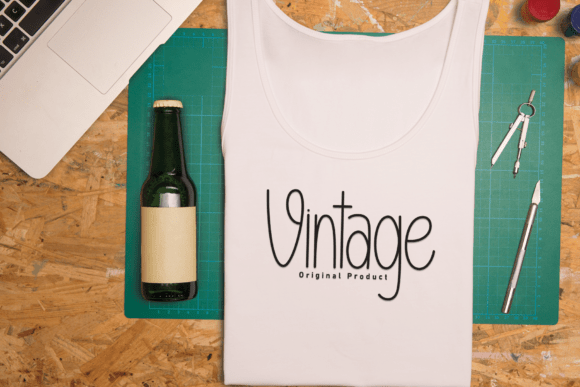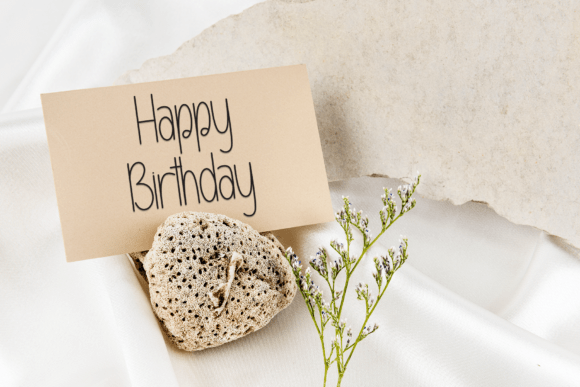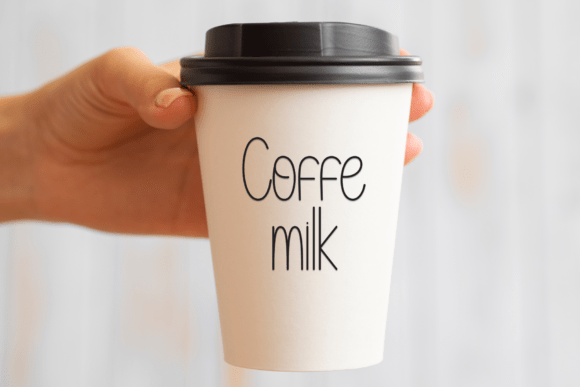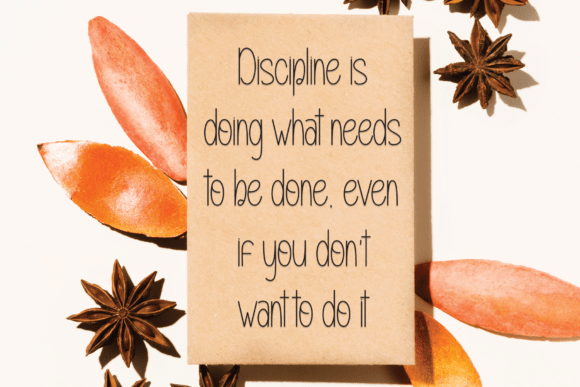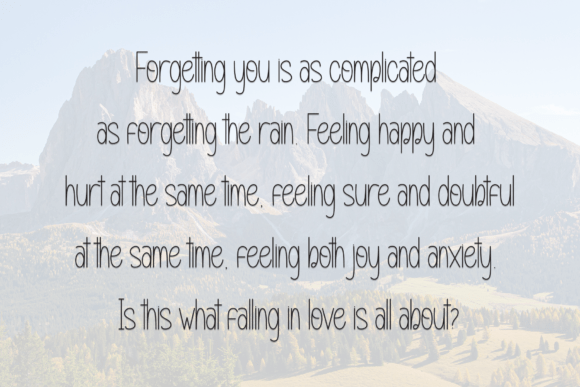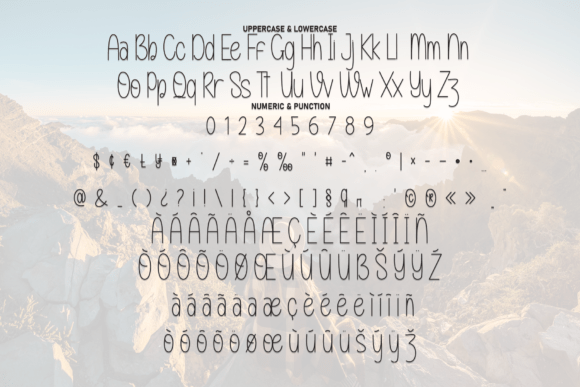
Happy Sunday Font: Adding a Personal Touch to Your Designs
Are you looking for a font that can bring warmth and authenticity to your designs? Look no further than the Happy Sunday font, a casual handwritten font that is perfect for adding a personal and friendly touch to any project. In this article, we’ll take a closer look at the Happy Sunday font, its features, and how you can use it to elevate your designs.
What is Happy Sunday Font?
Happy Sunday is a casual handwritten font that radiates warmth and authenticity. It features smooth strokes, relaxed curves, and naturally balanced letterforms, which capture the charm of everyday handwriting with a clean and approachable style. This font is perfect for designers and crafters who want to add a personal touch to their designs, making them more relatable and engaging.
Key Features of Happy Sunday Font
- Smooth Strokes: The Happy Sunday font features smooth strokes that give it a natural and effortless look.
- Relaxed Curves: The font’s relaxed curves make it easy to read and give it a friendly feel.
- Naturally Balanced Letterforms: Each letterform is carefully crafted to be naturally balanced, making the font easy to read and visually appealing.
- Clean and Approachable Style: The font’s clean and approachable style makes it perfect for a wide range of design projects.
Use Cases for Happy Sunday Font
The Happy Sunday font is versatile and can be used for a variety of design projects, including:
- Quotes: Add a personal touch to your quotes with the Happy Sunday font, making them more relatable and engaging.
- Branding: Use the Happy Sunday font to create a friendly and approachable brand identity that resonates with your audience.
- Packaging: Add a personal touch to your packaging designs with the Happy Sunday font, making them more visually appealing.
- Social Media Posts: Use the Happy Sunday font to create engaging social media posts that stand out from the crowd.
Benefits of Using Happy Sunday Font
The Happy Sunday font offers several benefits, including:
- Readability: The font’s clean and approachable style makes it easy to read, even at small sizes.
- Charm: The font’s smooth strokes and relaxed curves give it a charming and friendly feel.
- Versatility: The Happy Sunday font can be used for a wide range of design projects, making it a versatile addition to your font library.
- Effortless Flow: The font’s effortless flow makes it easy to use and pair with other fonts.
Tips for Using Happy Sunday Font
Here are some tips for using the Happy Sunday font effectively:
- Pair it with Other Fonts: Pair the Happy Sunday font with other fonts to create a unique and visually appealing design.
- Use it for Headings and Titles: Use the Happy Sunday font for headings and titles to add a personal touch to your designs.
- Experiment with Colors: Experiment with different colors to find the perfect combination that works with the Happy Sunday font.
The Happy Sunday font is a versatile and charming font that can add a personal touch to any design project. With its smooth strokes, relaxed curves, and naturally balanced letterforms, it’s perfect for designers and crafters who want to create engaging and relatable designs. Whether you’re working on a quote, branding project, packaging design, or social media post, the Happy Sunday font is a great choice.